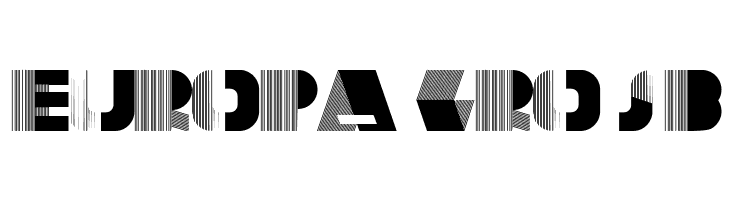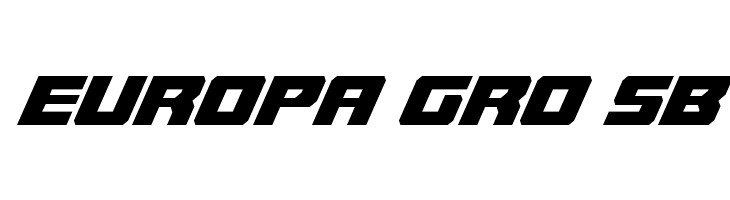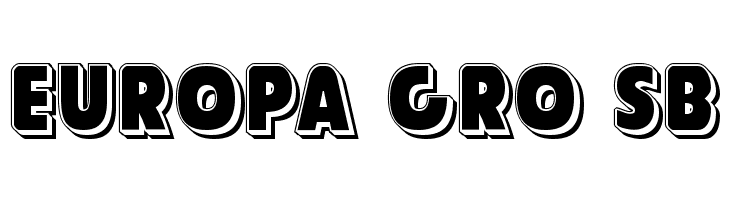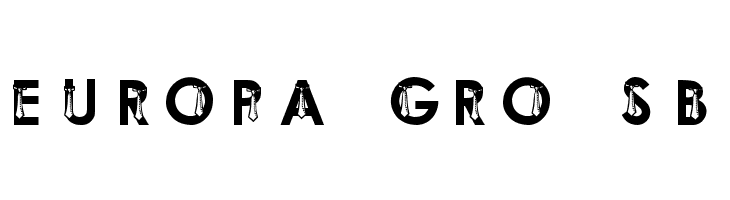
A bold, modern font with a mix of solid and striped geometric patterns.
A bold, 3D geometric font with strong outlines and a modern feel.
A bold, outlined font with a modern, futuristic look.
A bold, futuristic font with a unique diagonal striped pattern.
A bold, 3D block-style font with a futuristic and digital aesthetic.
A bold, condensed, and italicized font with a futuristic and dynamic style.
A futuristic, gradient-lined font with a bold, dynamic style.
A bold, three-dimensional font with a shadow effect for strong visual impact.
A bold, decorative font with a tie-themed design and distressed texture.